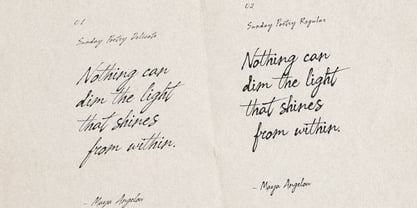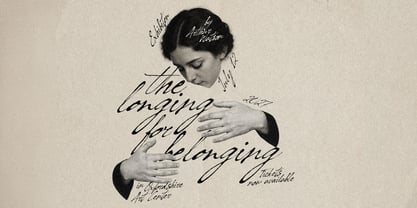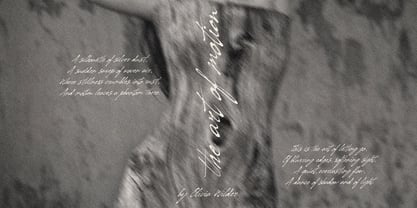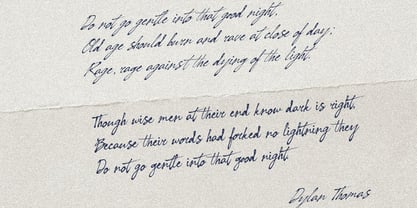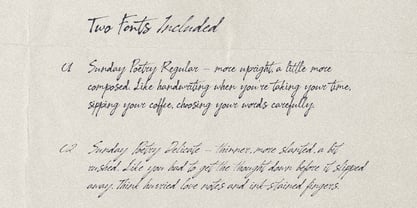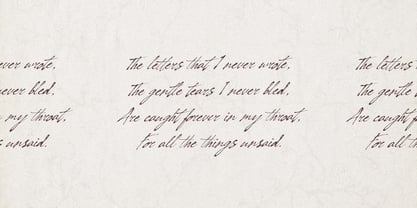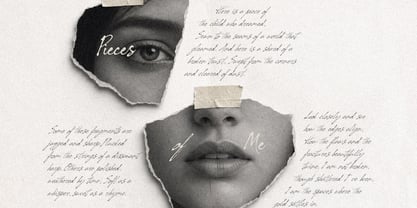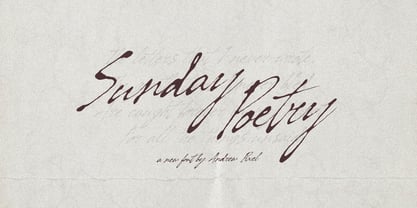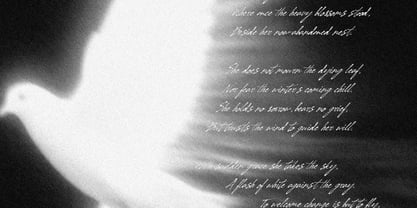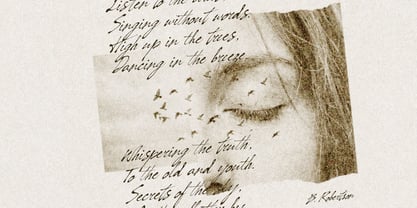
Sunday Poetry
by AndrewPixel
Some fonts are typed. This one feels written.
Sunday Poetry is a handwritten script font duo inspired by old letters, quiet mornings, and the kind of poetry you scribble in the margins of a notebook. It comes in two moods:
Sunday Poetry Regular — more upright, a little more composed. Like handwriting when you're taking your time, sipping your coffee, choosing your words carefully.
Sunday Poetry Delicate — thinner, more slanted, a bit rushed. Like you had to get the thought down before it slipped away. Think hurried love letters...
Together, they pair beautifully — use Regular for headlines and Delicate for the smaller, softer details (or the other way around).
AndrewPixel is a small typography studio based amid the ancient misty forests of Estonia. The boutique foundry specializes in crafting unique display fonts. Drawing inspiration from the mystical landscapes that surround them, AndrewPixel aims to blend the traditional with the contemporary to offer fonts that not only look different but feel profoundly impactful.